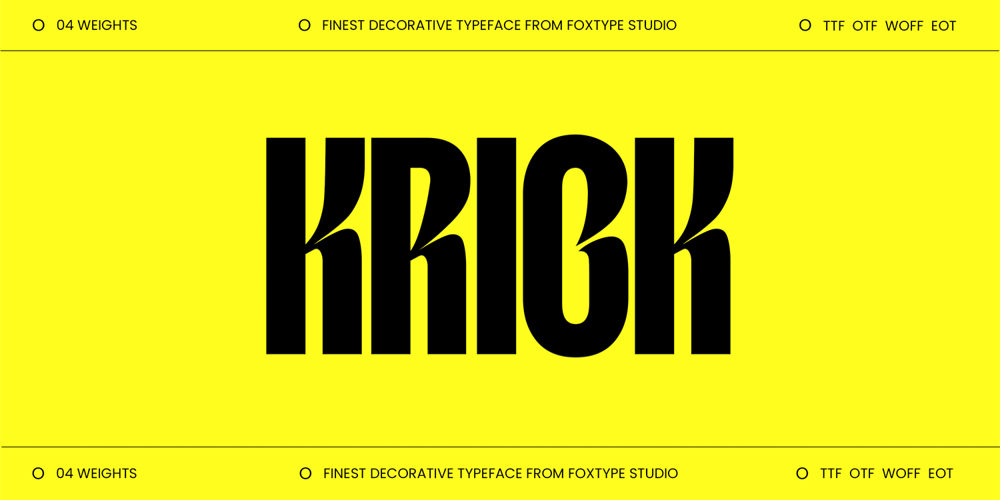
Krick Font Family was designed by Evin Tony and published by FoxType. Krick contains 4 styles and family package options. Introducing Krick Display new generation Typeface with 4 Weights. Krick Typeface created with the vision of to attract the audience to your brand . The finest details of this typeface are methodically and mathematically created. Krick is created with all the tasks of a corporate font and also for the usage in a variety of projects, including branding, logos, titles, headlines, servers, posters, screens, display, digital ads, and everything else.We are putting a lot of effort on this font as a long-term project. The Typeface includes four Weights. Regular, Medium, SemiBold, and Bold.